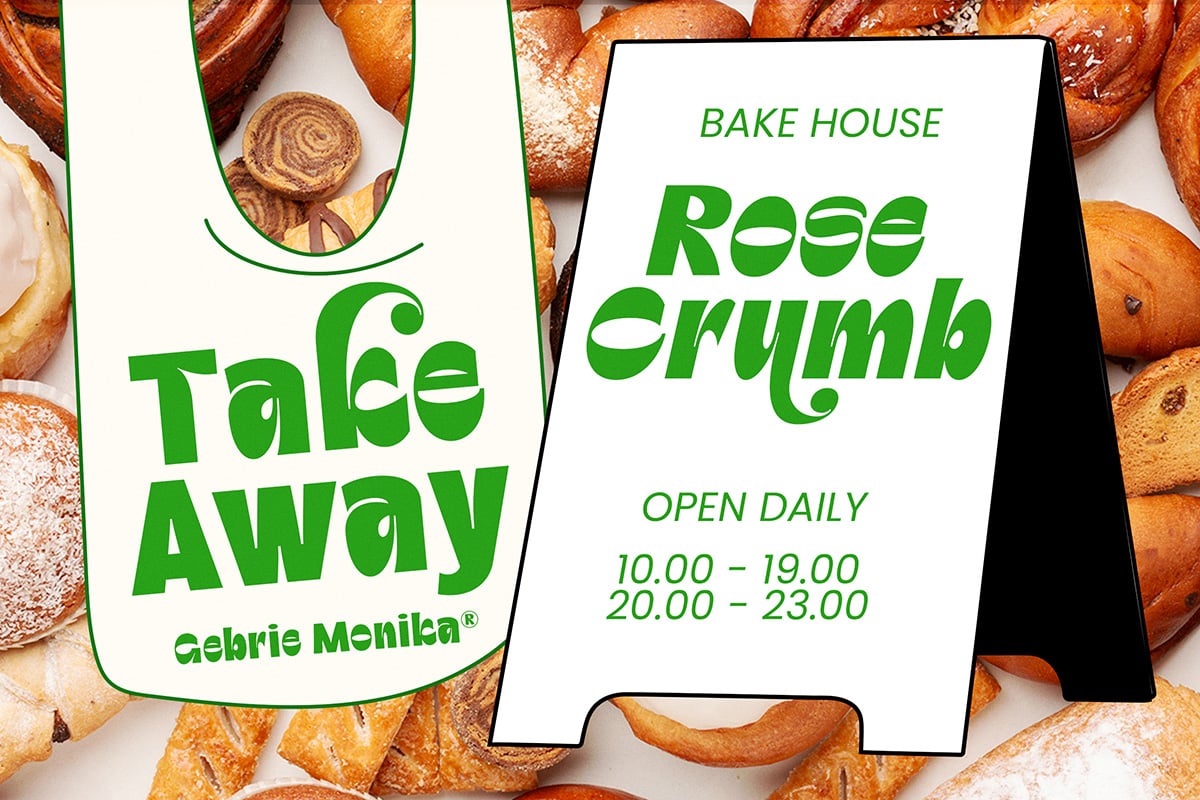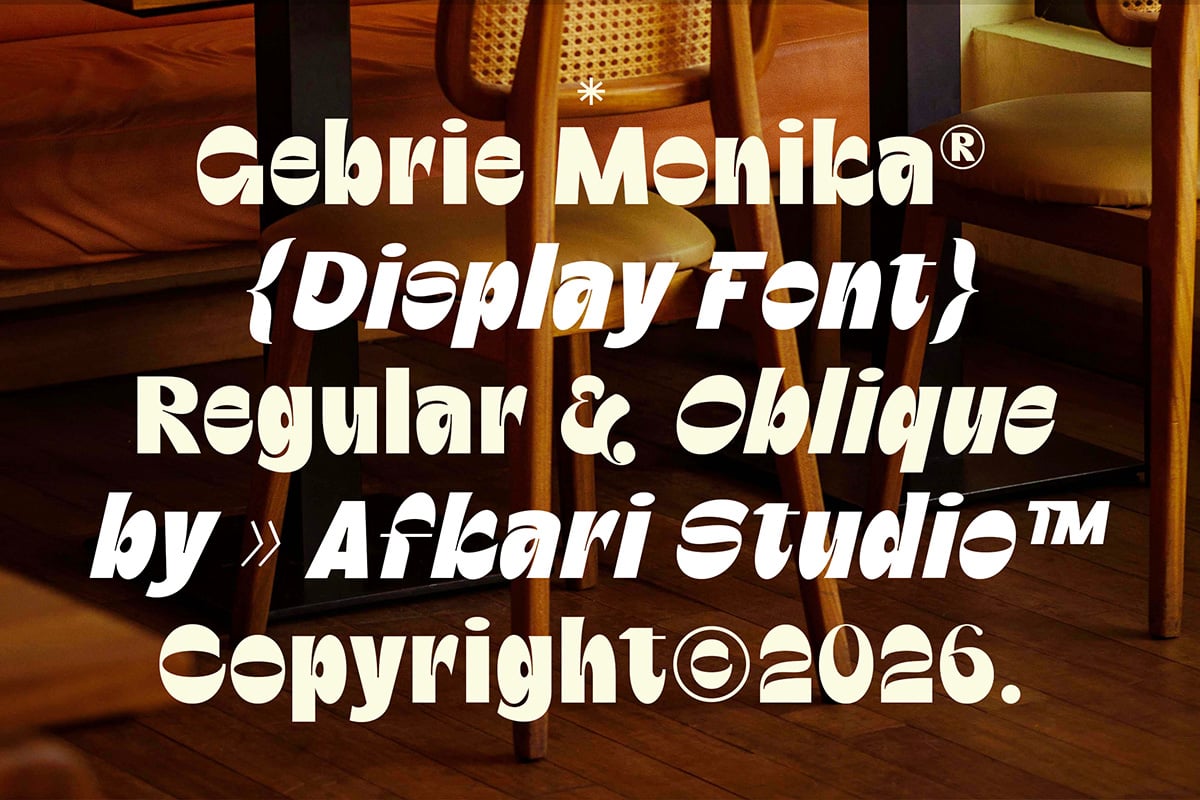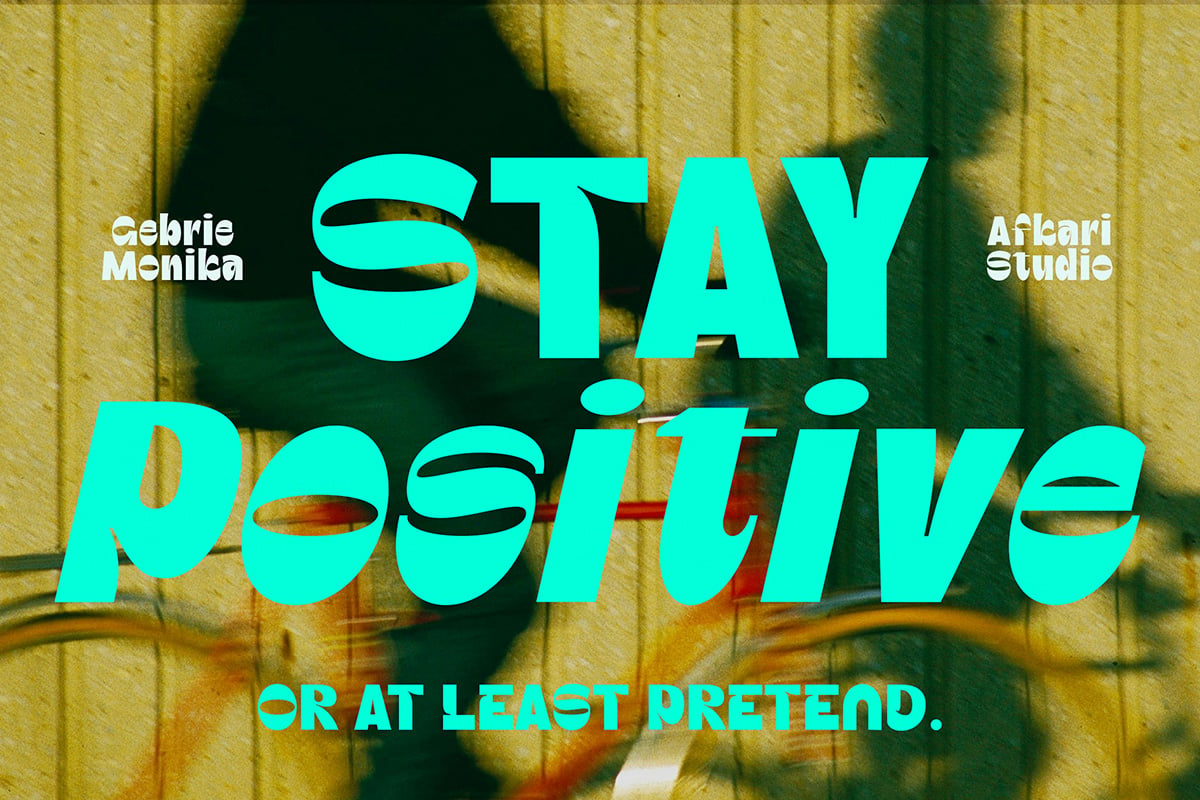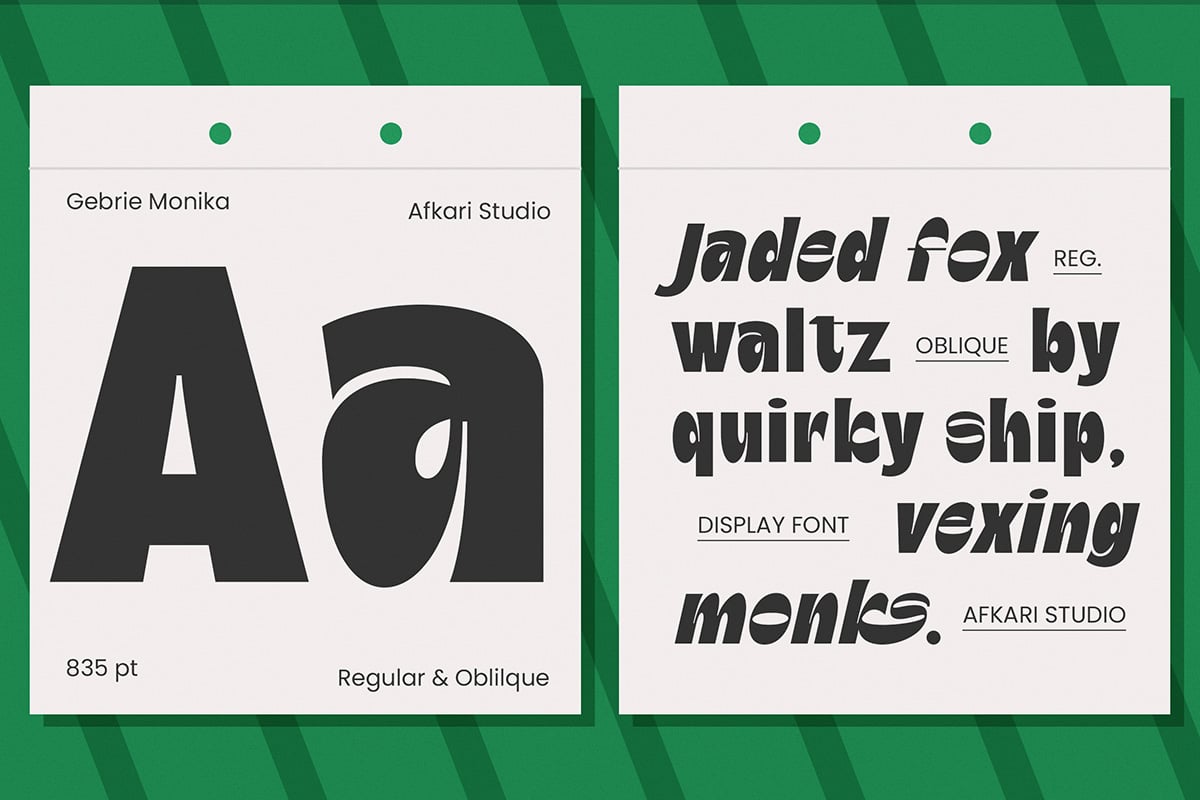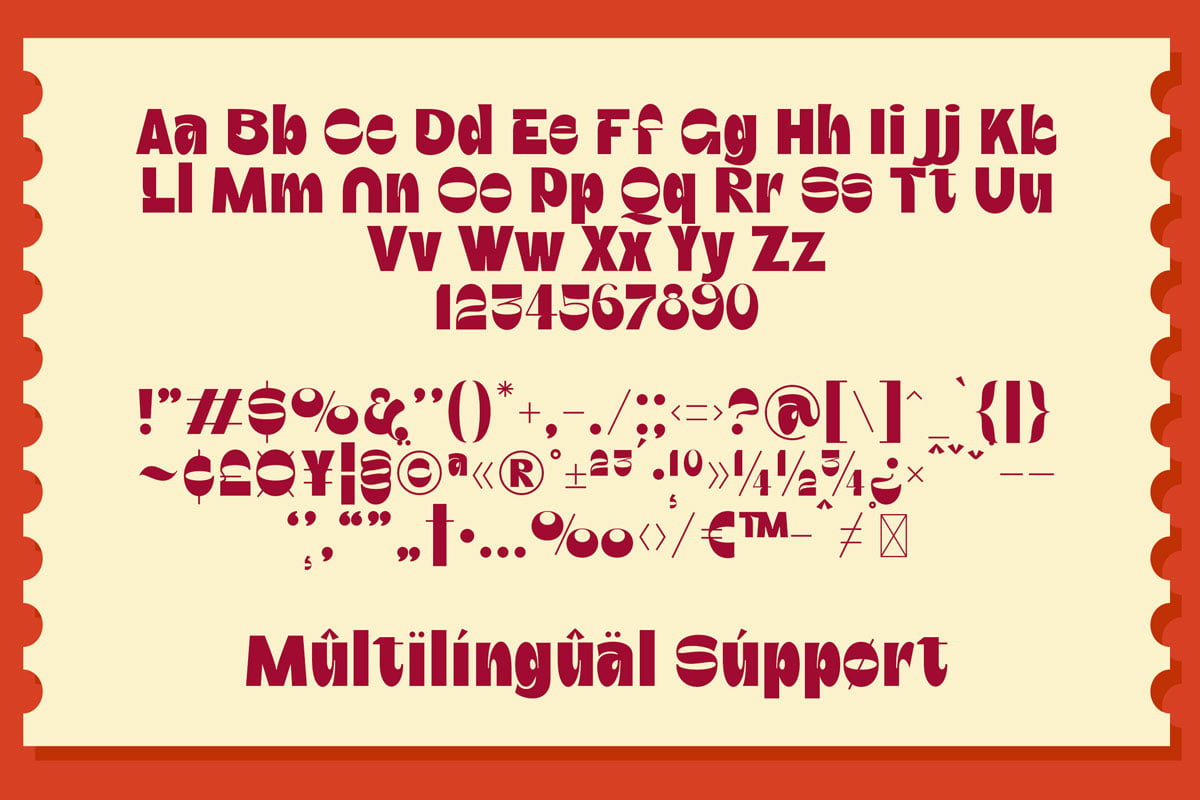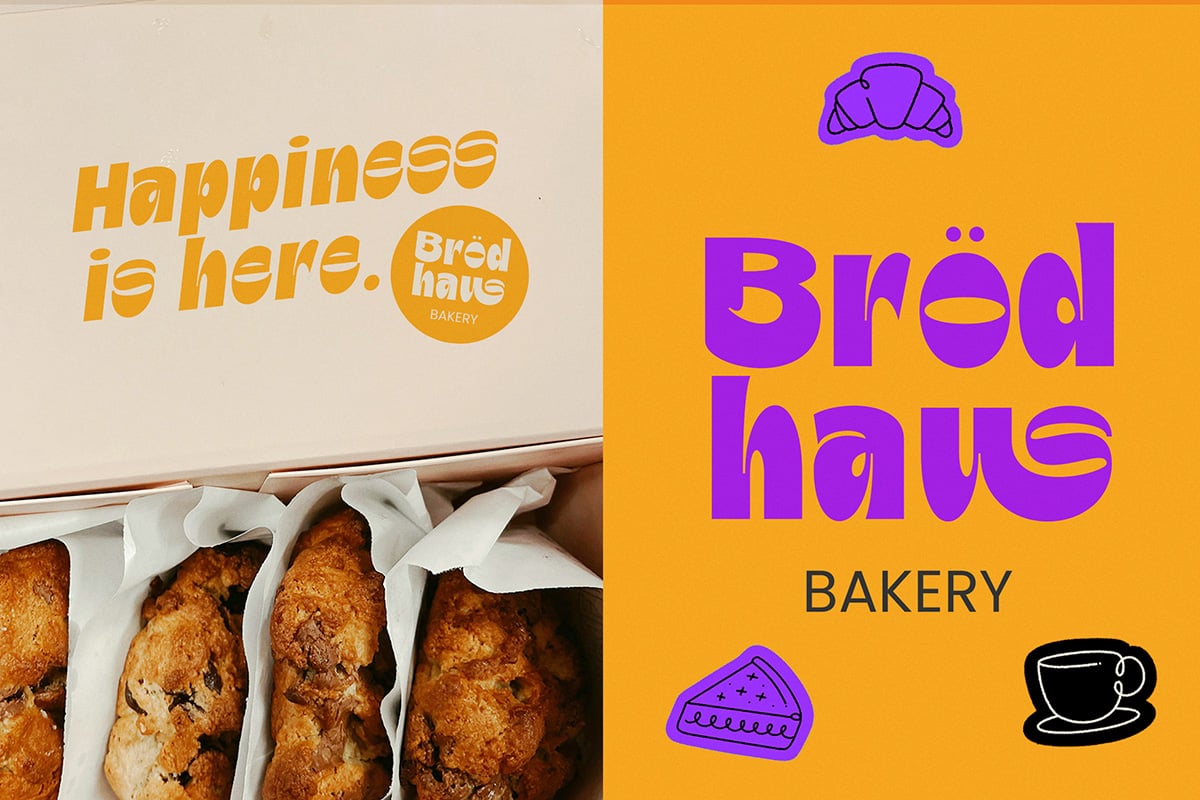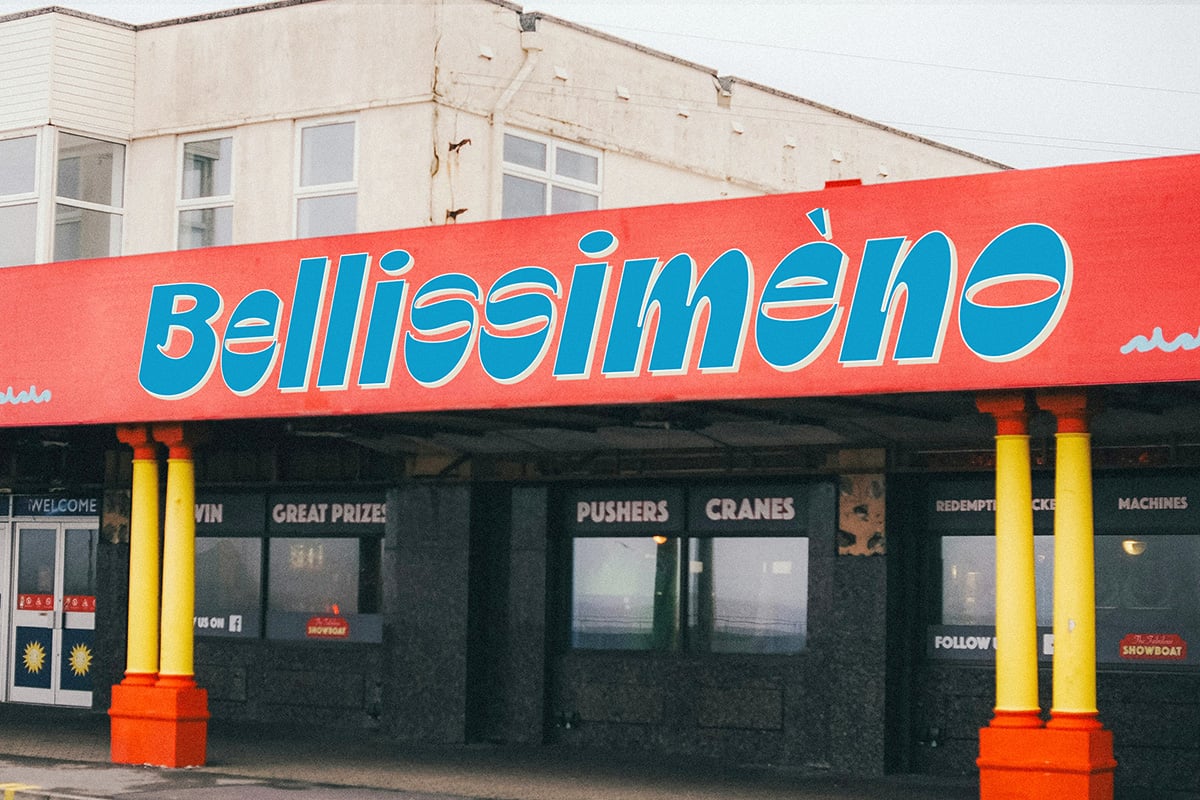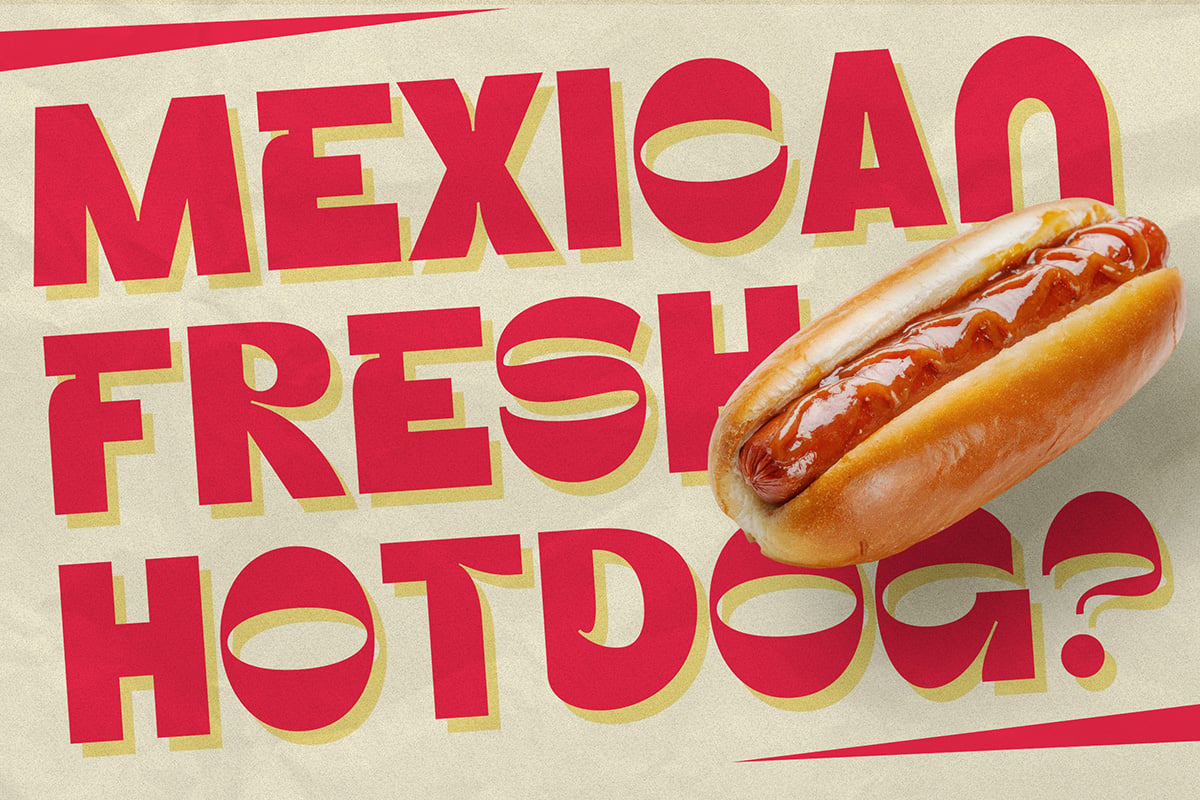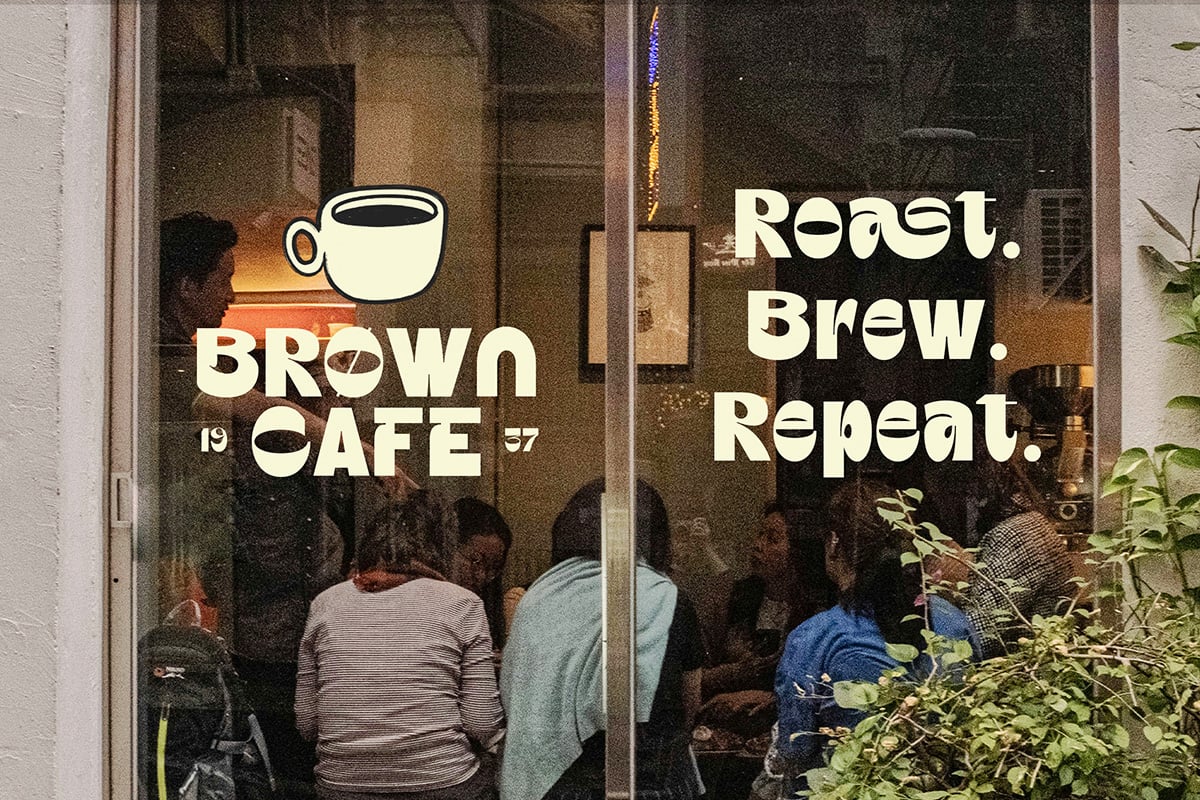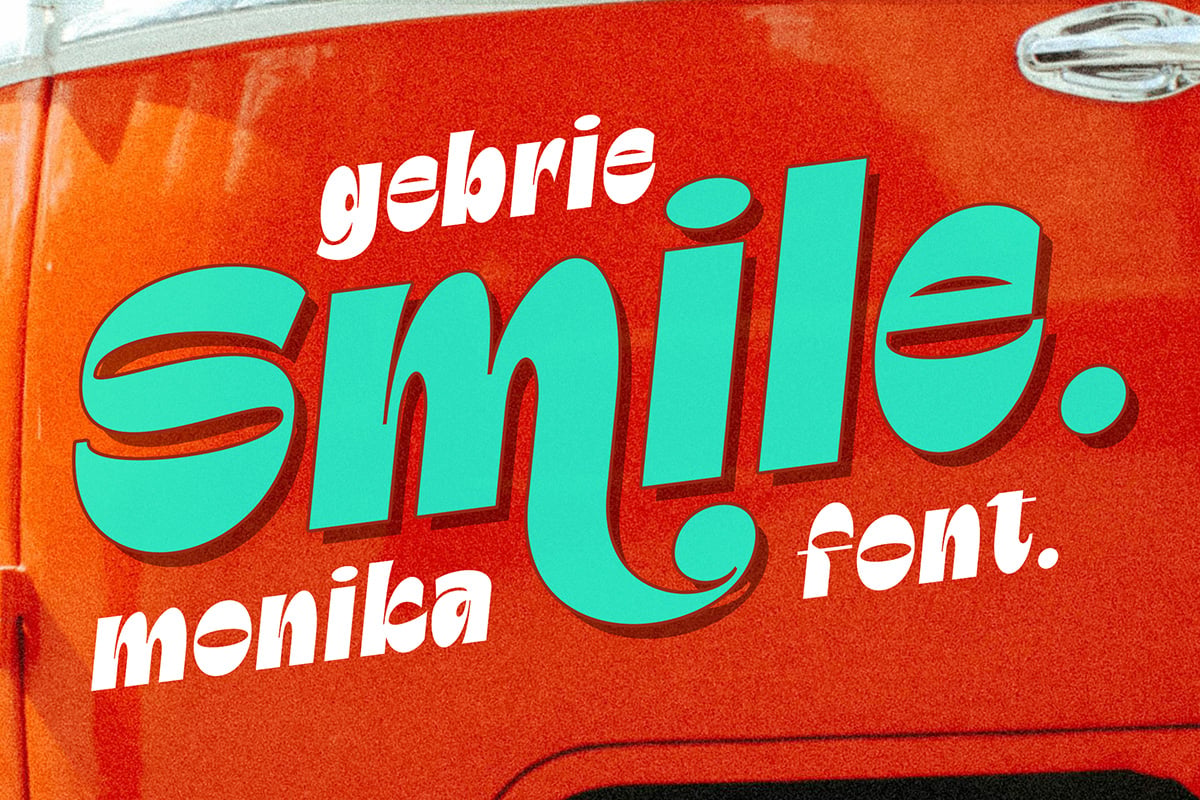
Gebrie Monika - Modern Display Sans Typeface
Gebrie Monika is a modern display sans typeface designed for clean, bold, and contemporary typography. With geometric shapes, balanced proportions, and a stylish modern aesthetic, Gebrie Monika delivers a strong visual presence for branding, headlines, and digital design.
This typeface includes Regular and Oblique styles, giving you flexibility to create both stable and dynamic compositions. Regular works perfectly for structured layouts, while Oblique adds motion, emphasis, and a modern editorial feel.
Gebrie Monika also features alternates and ligatures, allowing you to create unique and expressive typography with professional typographic control. Whether you’re designing logos, posters, websites, or social media graphics, this font brings a fresh, modern, and sophisticated look.
Highlighted Features:
- 2 styles: Regular & Oblique
- Alternates & ligatures included
- Clean, modern letterforms
- Uppercase & lowercase letters
- Numbers & punctuation
- Mültîlíñgúãl Sùppört for; ä ö ü Ä Ö Ü ß ¿ ¡
Create clean, bold, and modern designs with Gebrie Monika – Modern Display Sans Typeface, a contemporary font system built for premium branding and creative impact.